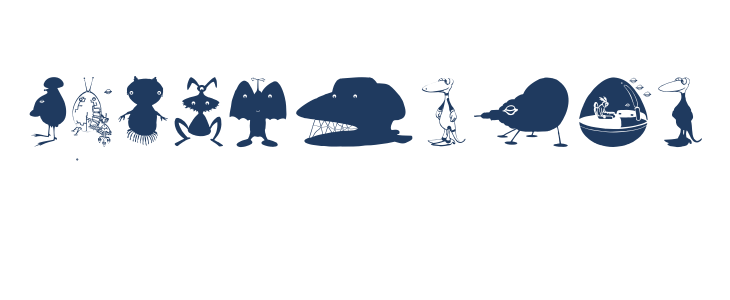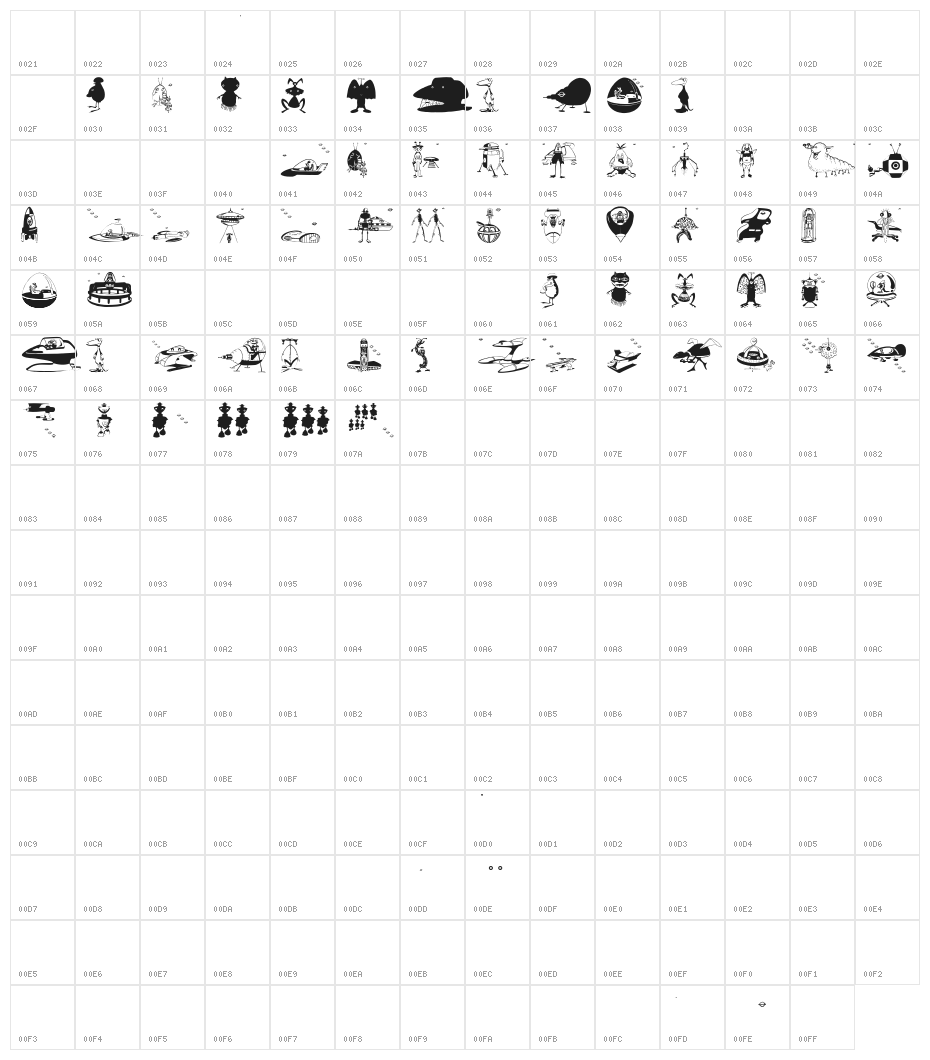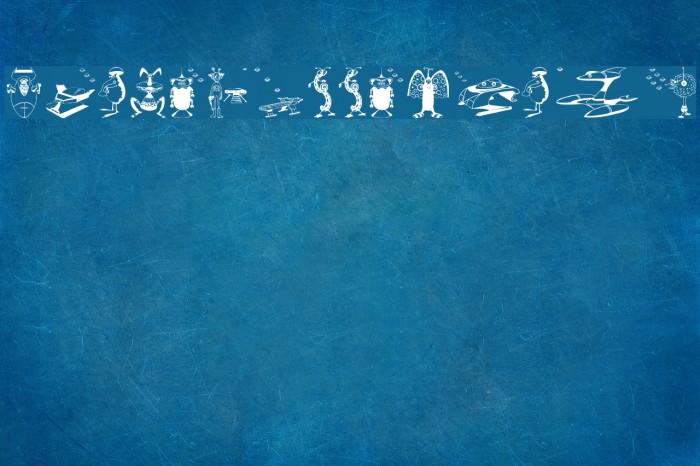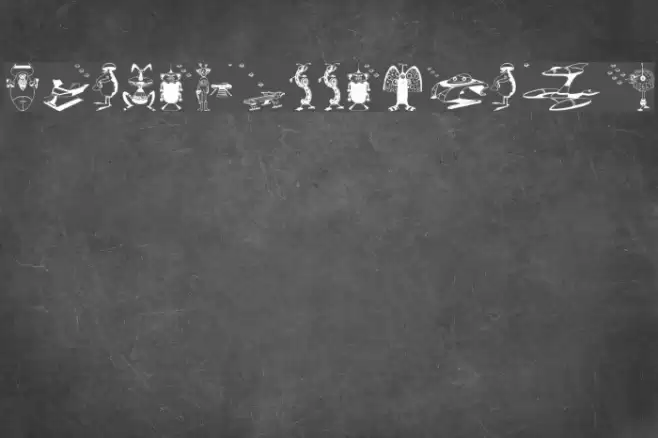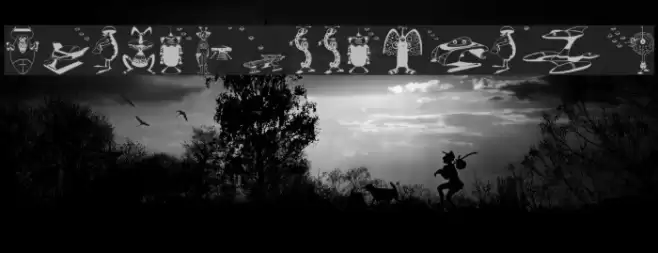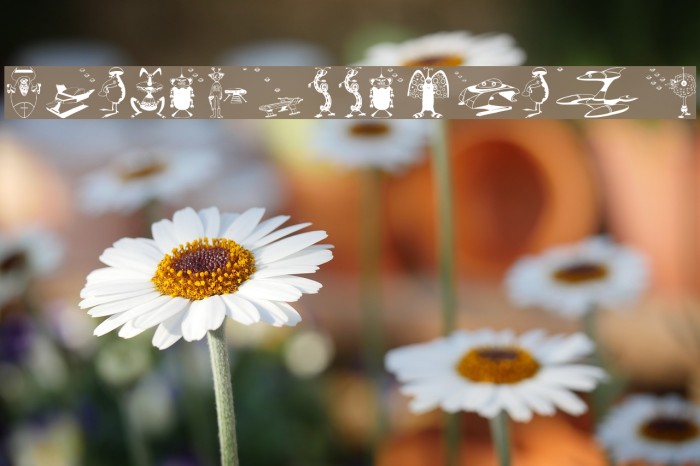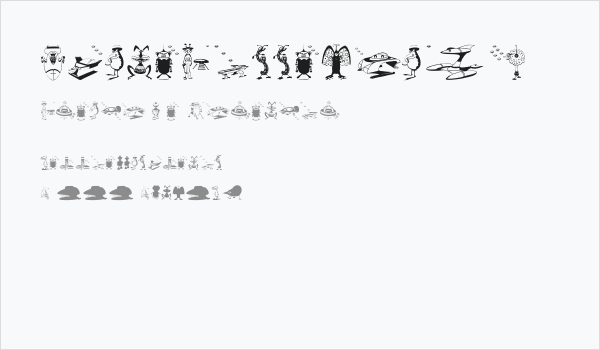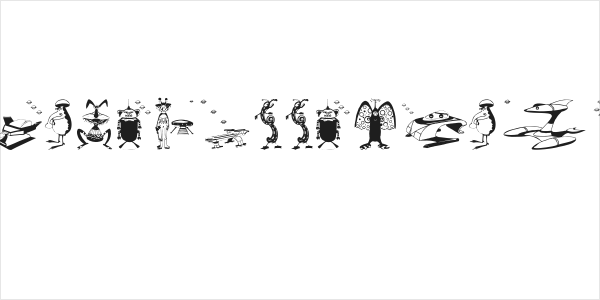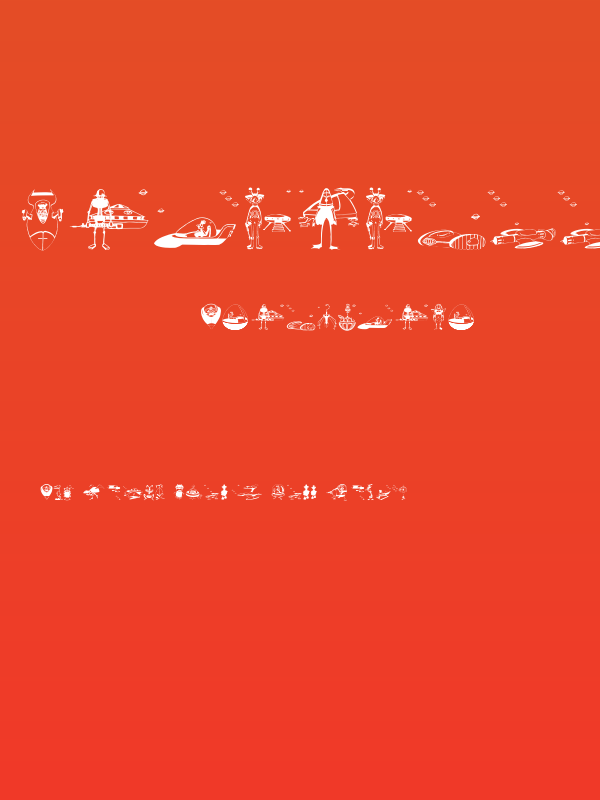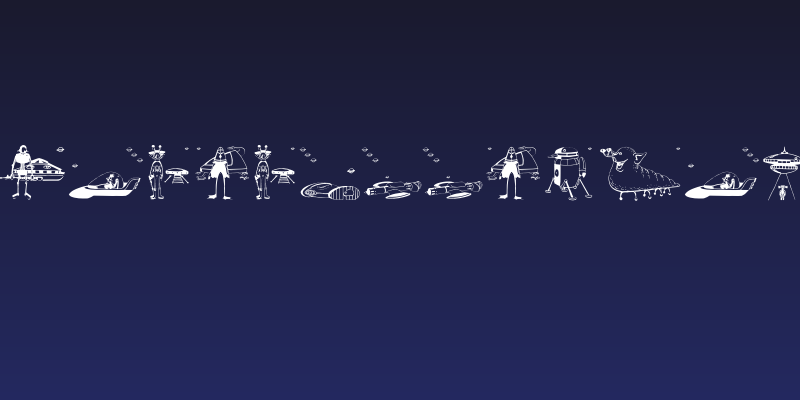
SpaceCommedians Font
SpaceCommedians Description
| Overall Style | Decorative, Whimsical, Cartoonish |
| Use Case | Illustrative elements, Themed graphics, Decorative accents |
| Proposed Projects | Children's books, sci-fi party invitations, comic strips, educational materials, themed posters. |